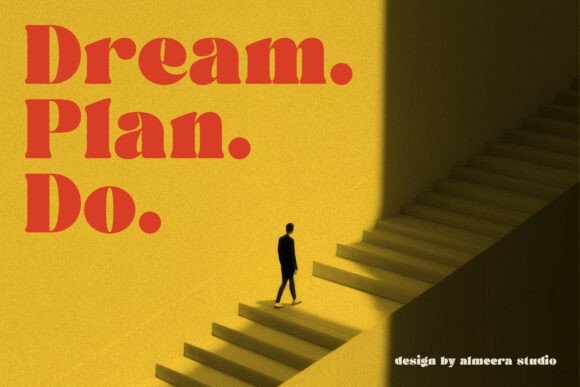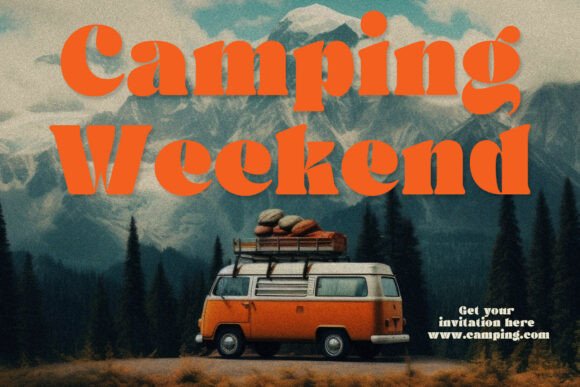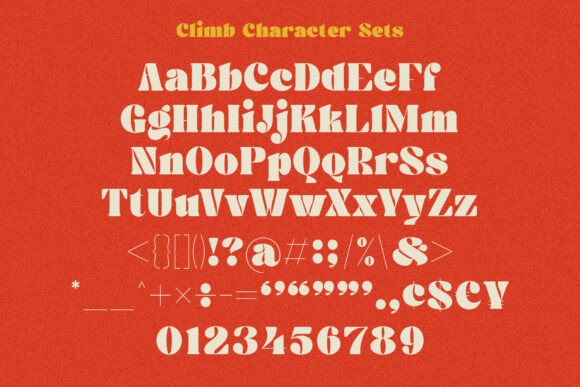
Introduction to Climb Font
As designers, we’ve all been there – staring at a blank canvas, waiting for that spark of creativity to strike. It’s the moment when the perfect font can make all the difference, elevating your design from good to great. And that’s exactly what the Climb Font promises to do – it’s a game-changer for any creative project.
With its high-quality display serif design, Climb Font is an exceptional choice for a wide range of applications, from branding projects and logos to social media posts and advertisements. Its versatility and style make it an invaluable resource for designers looking to add a touch of sophistication to their work.
Climb Font
- High-quality, professional font perfect for creative projects and design resources.
- Features a clean and modern design with a wide range of applications, from logos to typography.
- Unique characteristics: elegant, sophisticated, and versatile, making it an ideal choice for high-end design projects.
Honest Review: Climb Font
I recently had the opportunity to work with Climb Font, a high-quality font that’s perfect for creative projects that require a modern and adventurous vibe. The font’s transparent background made it easy to integrate into my design without any issues.
Here are some of the things that worked well for me: ✨
- Unique and stylish design that adds a touch of adventure to any project
While Climb Font is a great addition to any design project, there are a few limitations to be aware of: ⚠️
- The font is only available in a single weight, which may not be ideal for projects that require a range of weights and styles
- The font’s uniqueness can sometimes make it difficult to read, especially at smaller font sizes
Overall, I’m impressed with Climb Font and would definitely consider using it again for future projects. It’s a great design resource that can add a lot of value to creative projects, especially those that require a high-quality, modern font with a transparent background.
Climb Font
Getting the Most Out of Climb Font
To get the most out of Climb Font, use it in combination with other design elements, such as images and graphics. Experiment with different font sizes, colors, and styles to create unique and eye-catching designs.
Climb Font is ideal for use in brochures, posters, social media graphics, and other marketing materials. Its high-quality design makes it perfect for creating professional-looking designs.